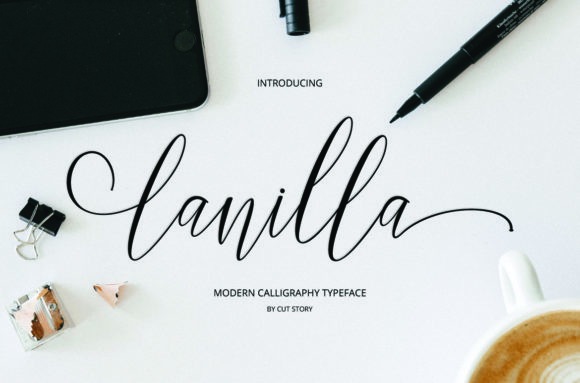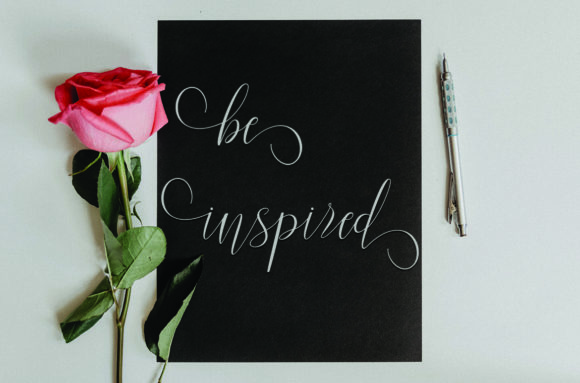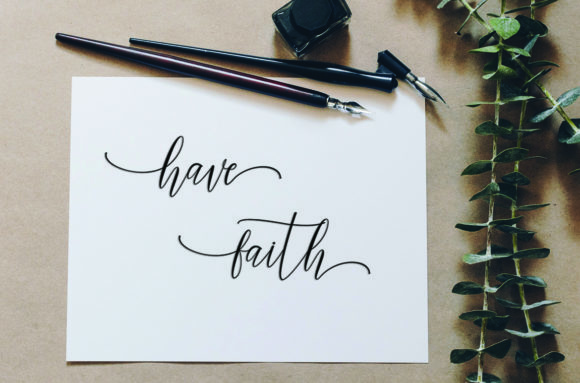
About Lanilla Font
Lanilla is a modern and fresh script font carefully created with a touch of elegance. This font is PUA encoded which means you can access all of the astonishing glyphs and characters with ease!